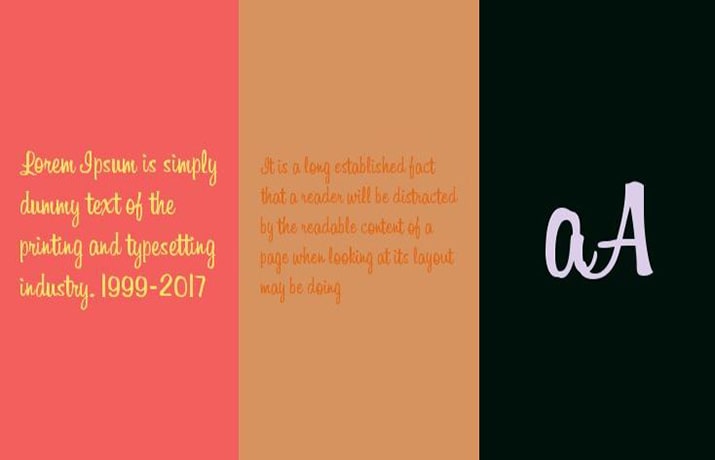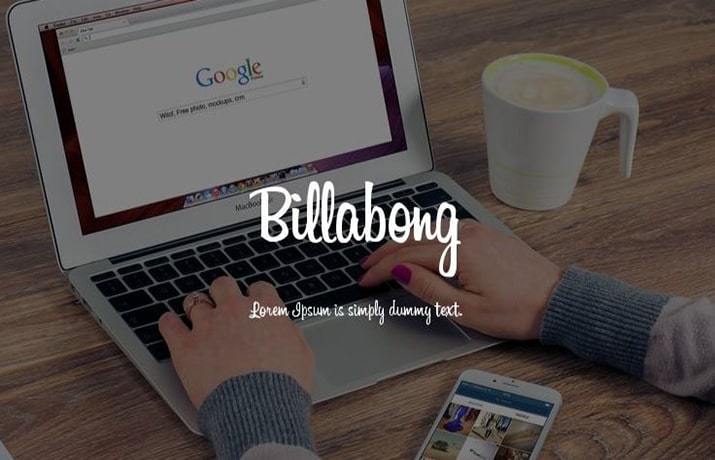
Today we are glad to introduce a new typeface called Billabong Font. It is a stunning script calligraphy typeface along with a stylish brush and hand-made look.
It was designed in 2006 by a notable graphic designer named Russell Bean and released through Type Associates.
After its release, it gained a lot of popularity in no time and was tried by many notable designers. The design has standard strokes and highlights so it will be a useful font for your beautiful designs.
So, we can say that the designer of this stylish font took care to make all the glyphs and charts cool and highly readable.
This font family is perfect for large headlines and headings, as well as short or long paragraphs. You can apply this typeface wherever you want like quotes, newspaper or magazine headlines, reports, post descriptions, letterheads, simple text designs, etc.
It has 8 styles and comes in 6 weights including regular, italic, bold, medium, heavy, and ultra and each has its matching italics.